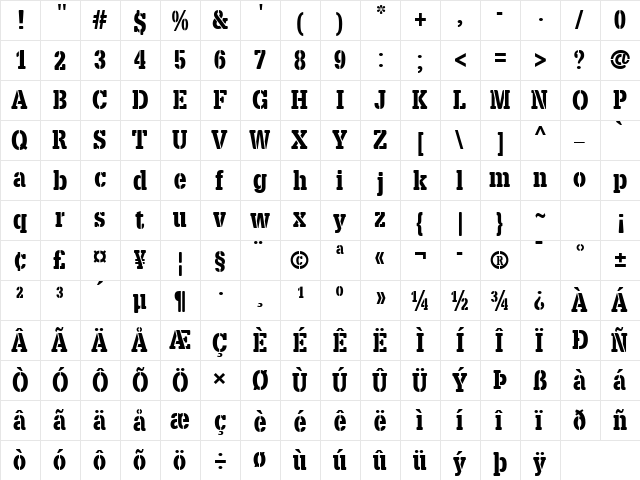
X.Template Regular
| Foundry | deFharo |
| Designer | deFharo |
Design Context for X.Template Typeface
X.Template is a composed and adaptable typeface that performs quietly and consistently across a wide range of design contexts.